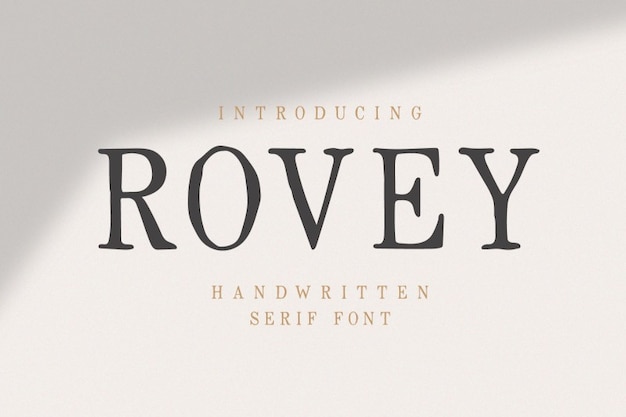
Rovey Font
Embrace the timeless elegance of Rovey, where handwritten grace meets classic calligraphy. This font effortlessly blends the warmth of handwritten characters with the sophistication of traditional calligraphy. Whether you're designing invitations, crafting elegant logos, or simply seeking a touch of classic charm, Rovey is your go-to choice. It adds an air of timeless refinement to any project.